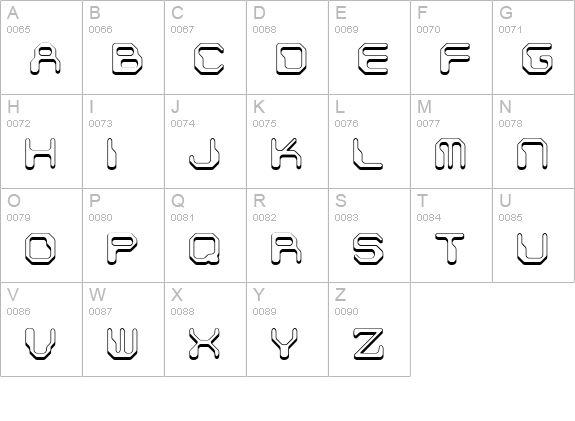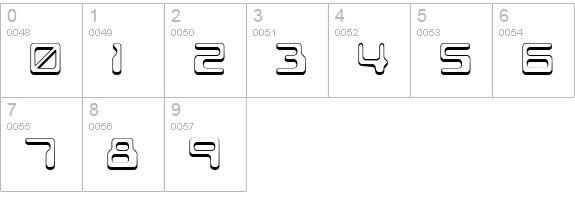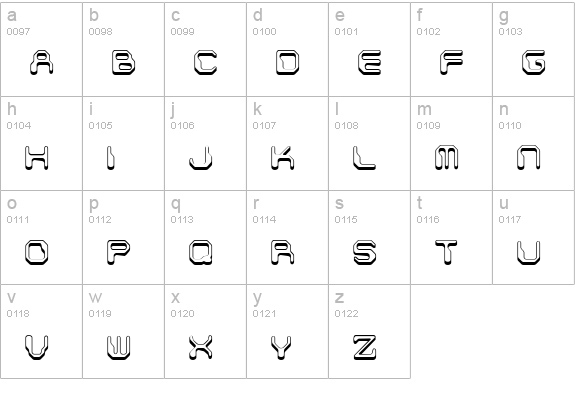
Chintzy CPU Shadow (BRK) Font Details
Introducing Chintzy CPU Shadow (BRK), a remarkable font that combines the perfect blend of vintage charm and modern sophistication. This font is a true gem in the world of typography, with its unique shadow effect and quirky yet elegant design. Chintzy CPU Shadow (BRK) is not only visually appealing but also incredibly versatile. It is perfect for a wide range of design projects, from eye-catching logos and branding materials to captivating headlines and attention-grabbing advertisements. This font is guaranteed to make any text stand out and leave a lasting impression on your audience. One of the best things about Chintzy CPU Shadow (BRK) is that it is completely free. Yes, you read that right! You can easily download this font without spending a single penny. Simply head over to FontsMarket.com, where Chintzy CPU Shadow (BRK) is freely available for download. This means that you can enjoy its stunning features and impeccable quality without any financial constraints. So, why wait? Elevate your designs to new heights with Chintzy CPU Shadow (BRK). Whether you're a professional graphic designer or a creative enthusiast, this font is sure to exceed your expectations and give your projects the boost they deserve. Download it today and let your creativity soar!